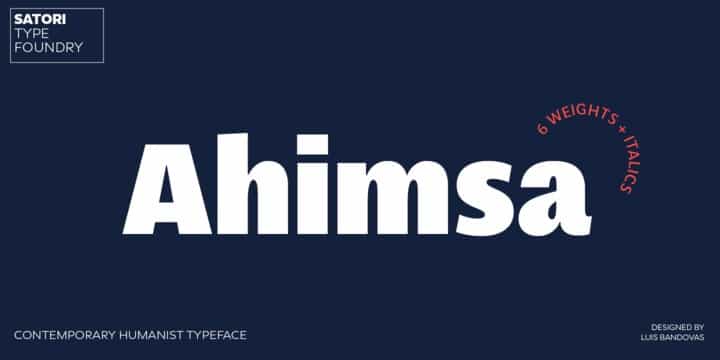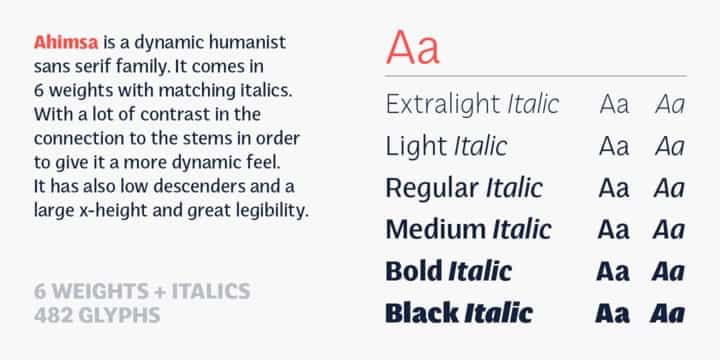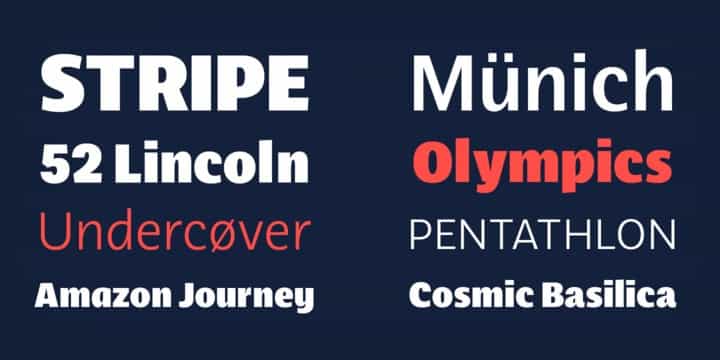
Discover Ahimsa Font, part of the Sans Serif collection—a versatile and unique font perfect for adding a personal touch to your projects. Download it for free and enjoy crafting designs with style, from invitations to social media posts. This font is available exclusively for personal use, giving you the freedom to create without limits. Unlock your creativity with Ahimsa Font today!
Ahimsa Font has been changed and will be changed more as more characters and the options are created or optimized, if you need some particular character, please, leave the comment. It has many contrasts in relation to the stems to make it more lively, and low descenders, a large x height and excellent readability.